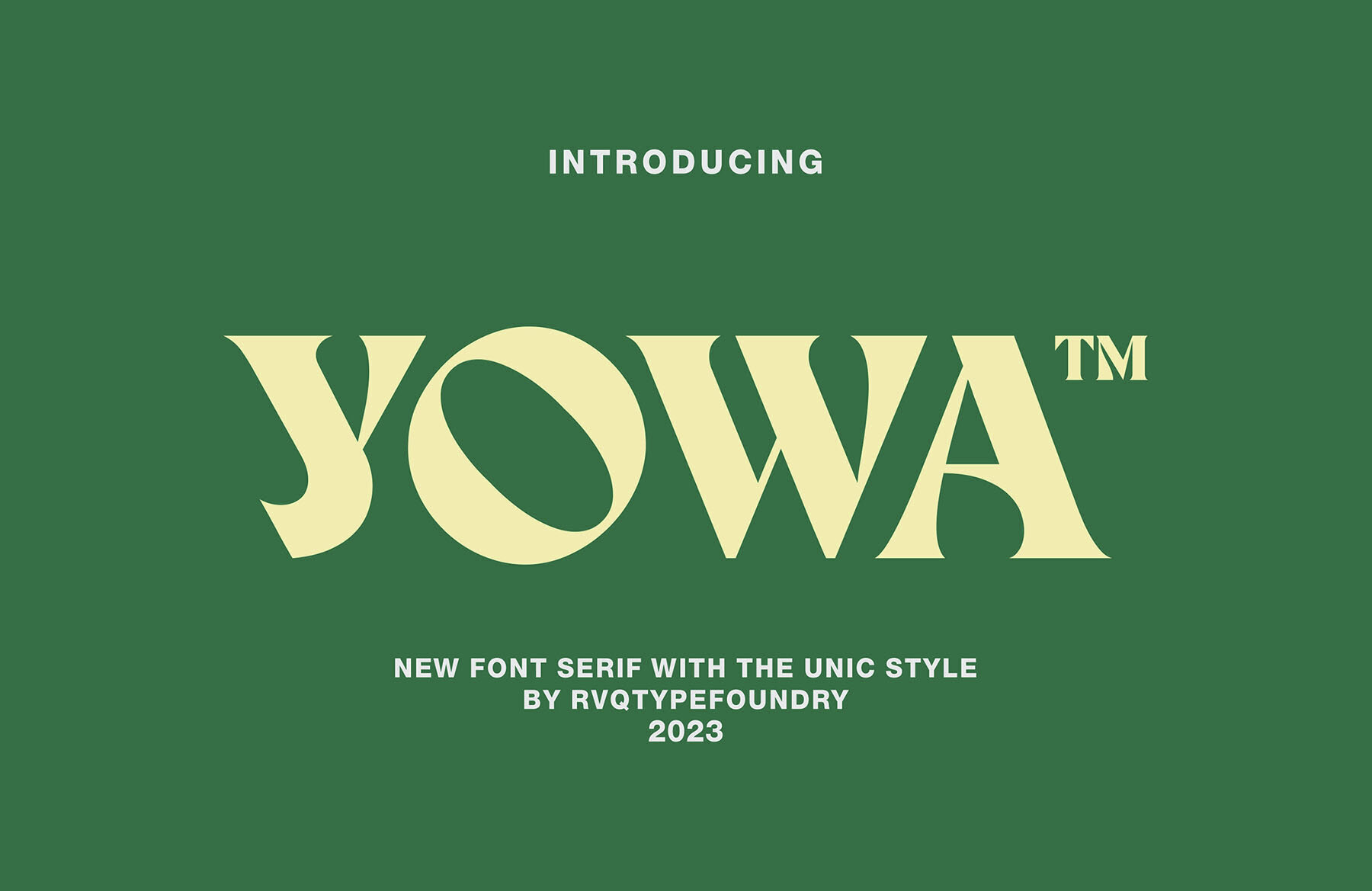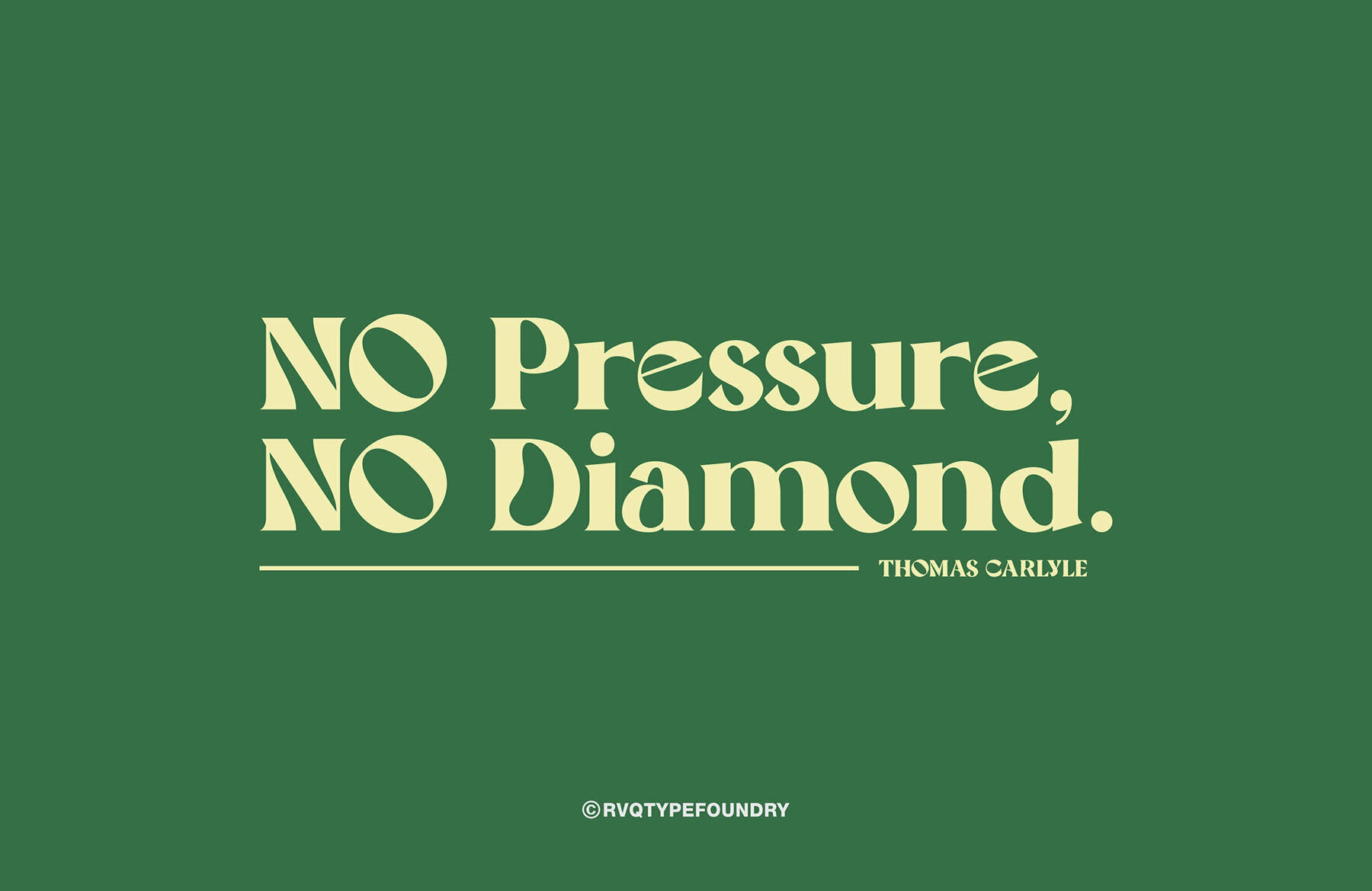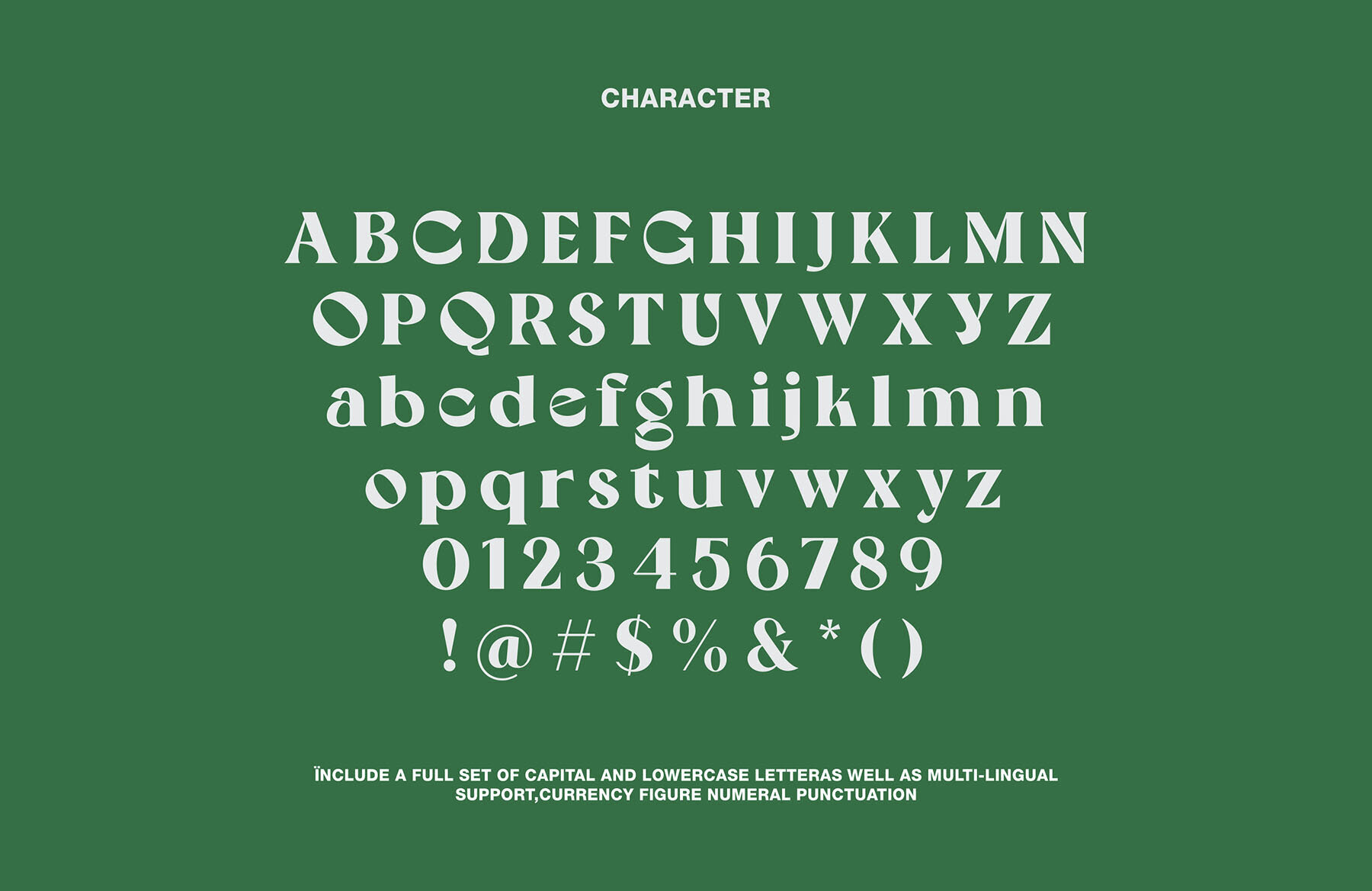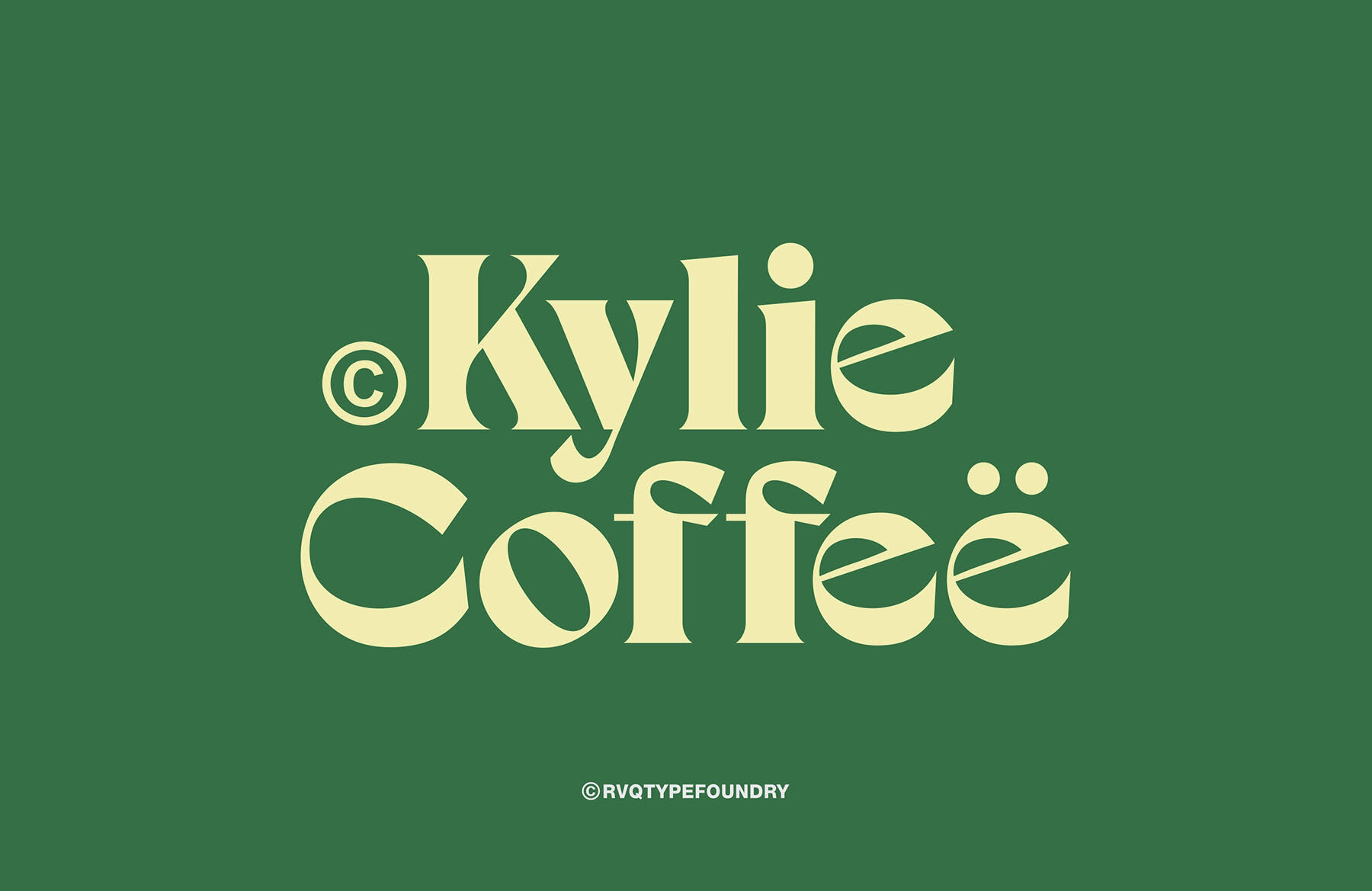
Yowa Font
YOWA typeface Regular
The yowa type is new font from Rvq Typefoundry, elegant feel character set. To create the beautiful combination, just mix the uppercase and lowercase. The yowa type includes a full set of capital and lowercase letters, as well as multi-lingual support, currency figures, numerals, punctuation & some extra glyphs.